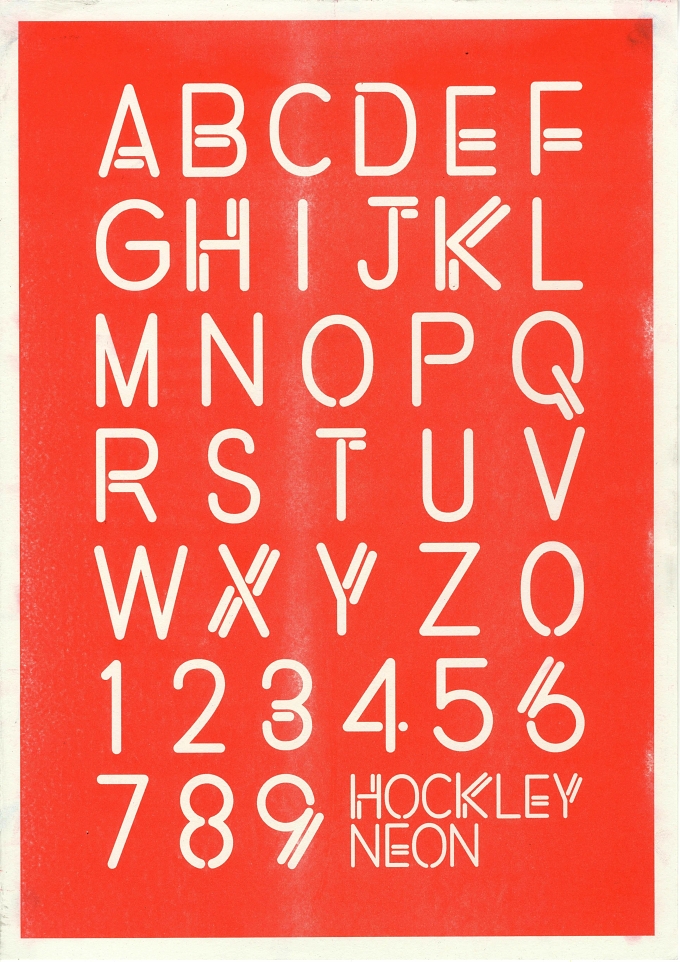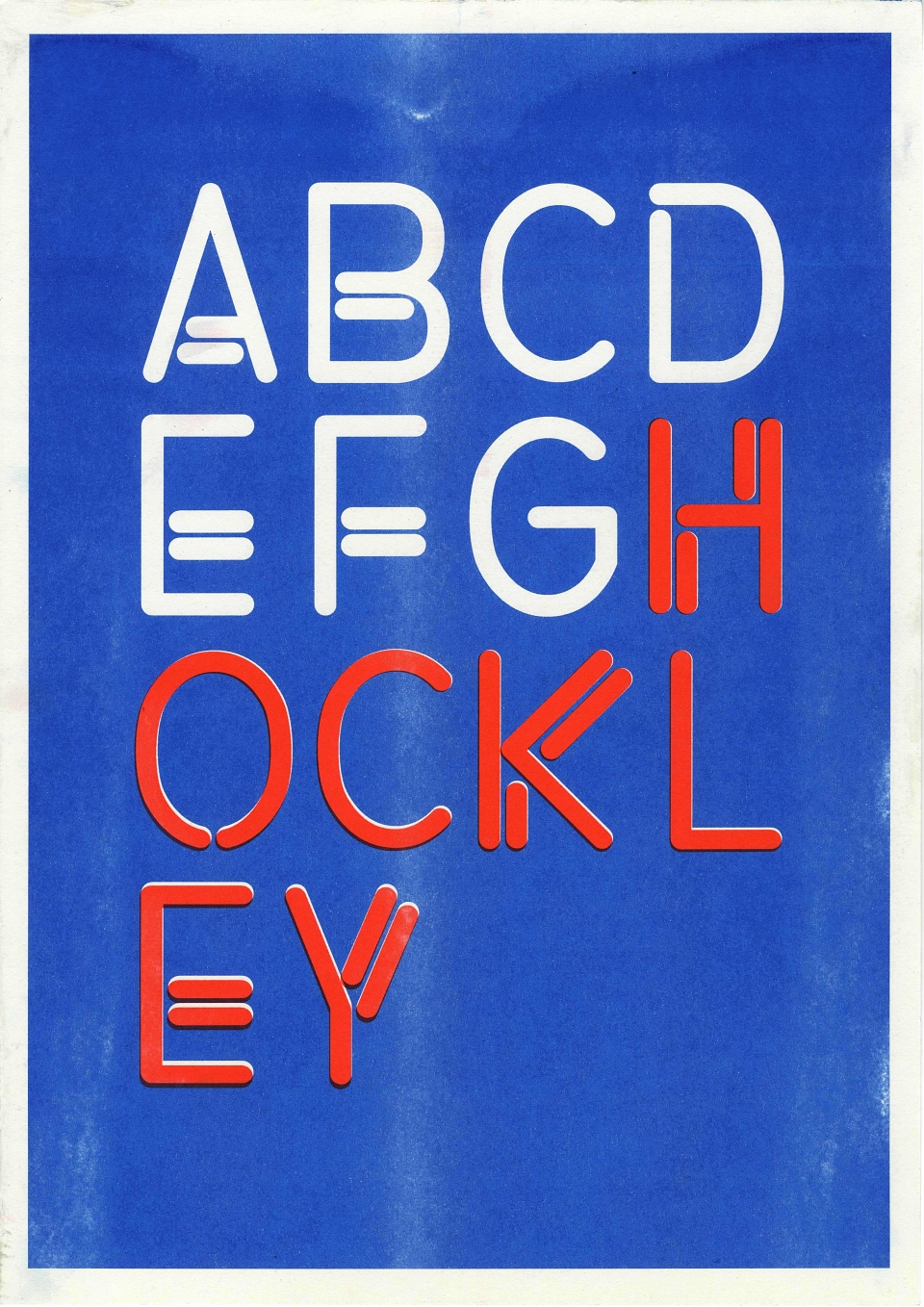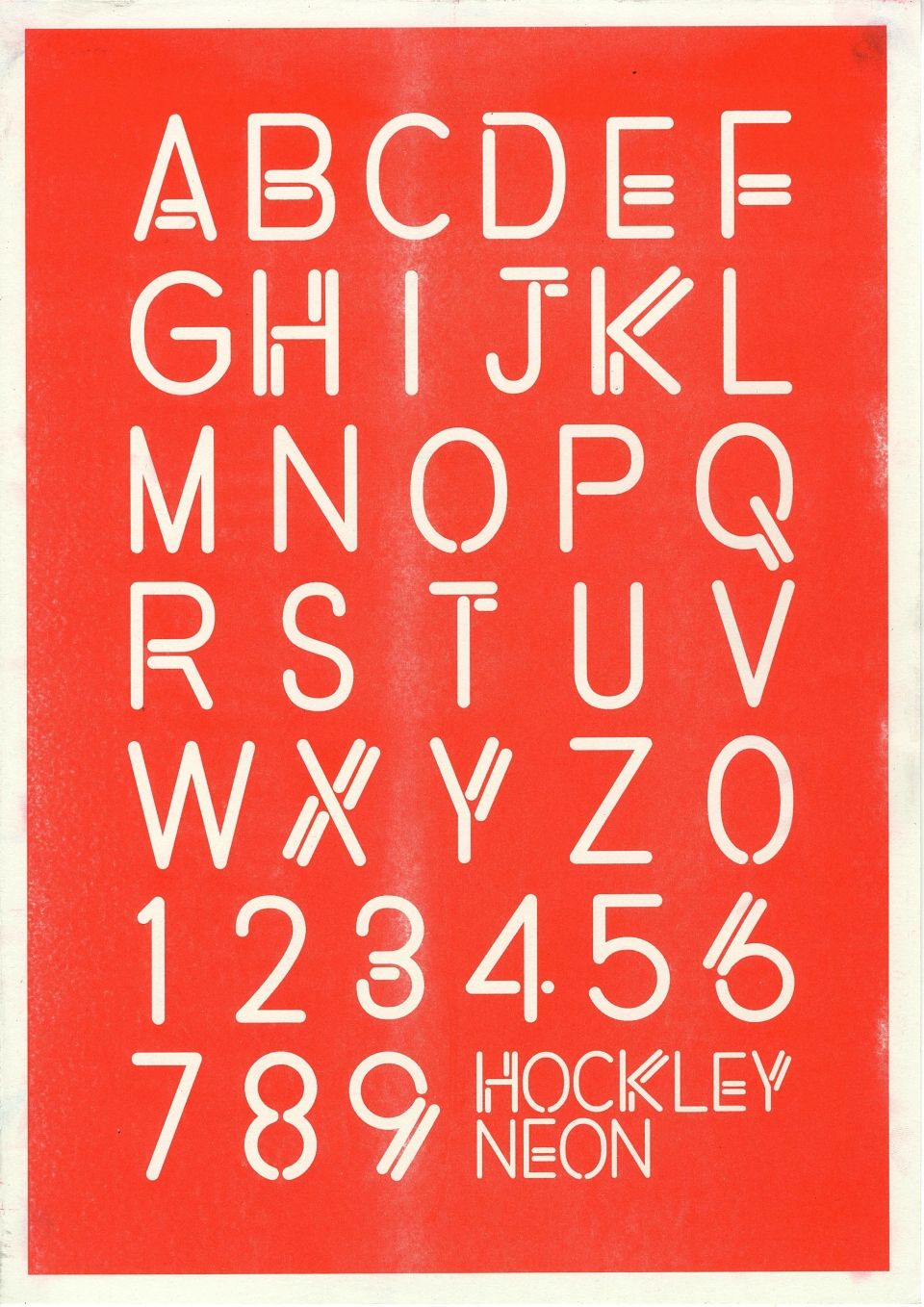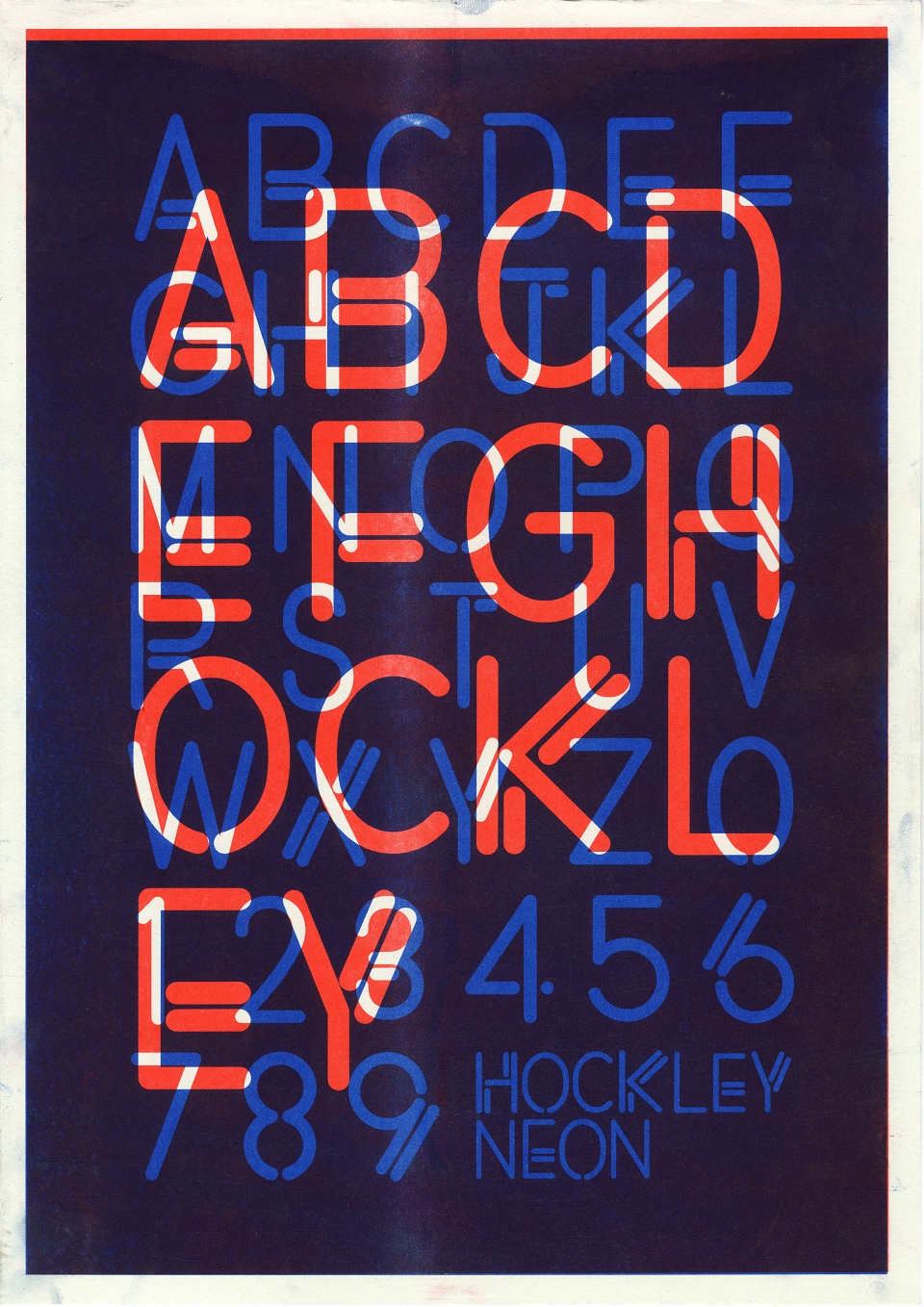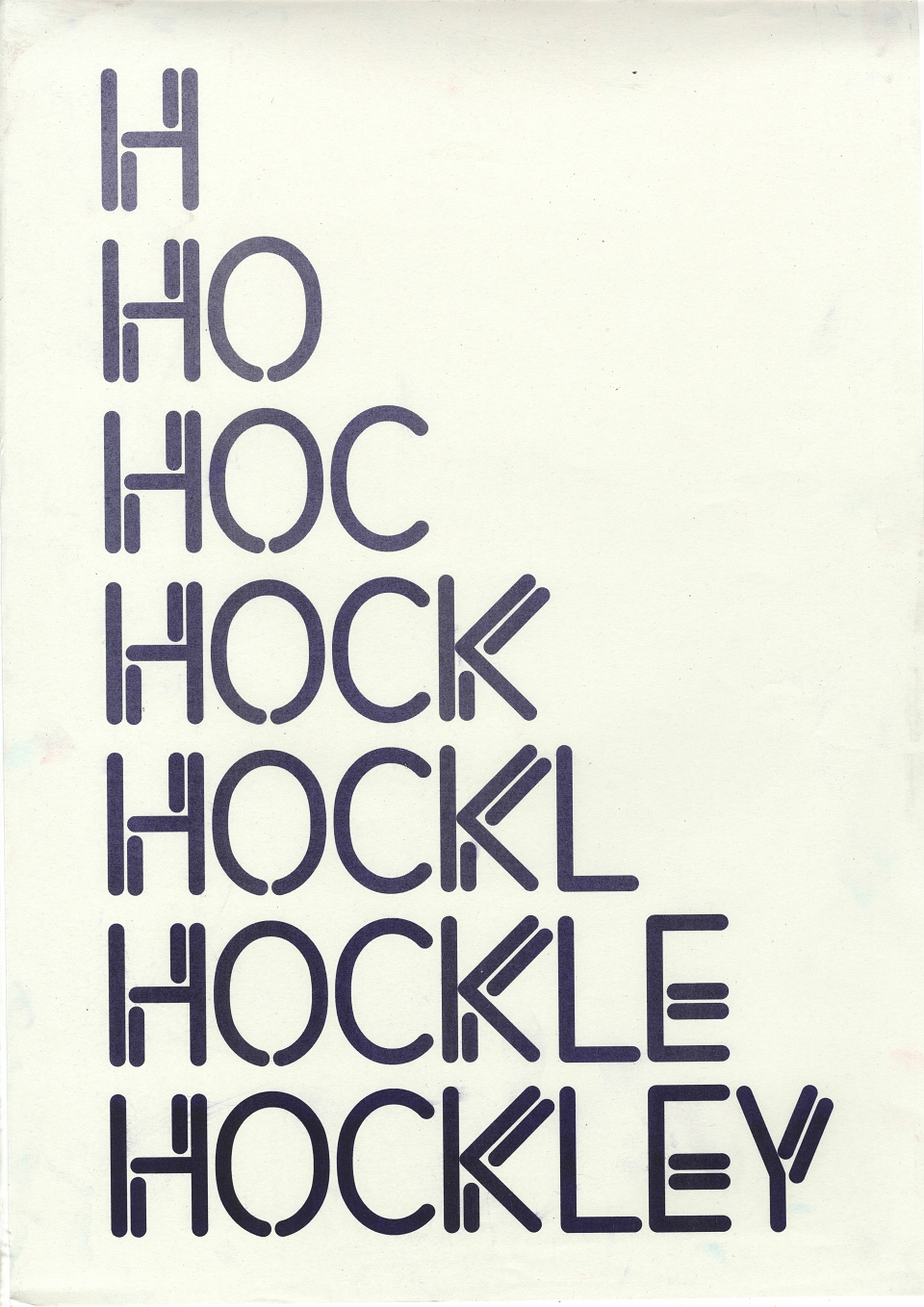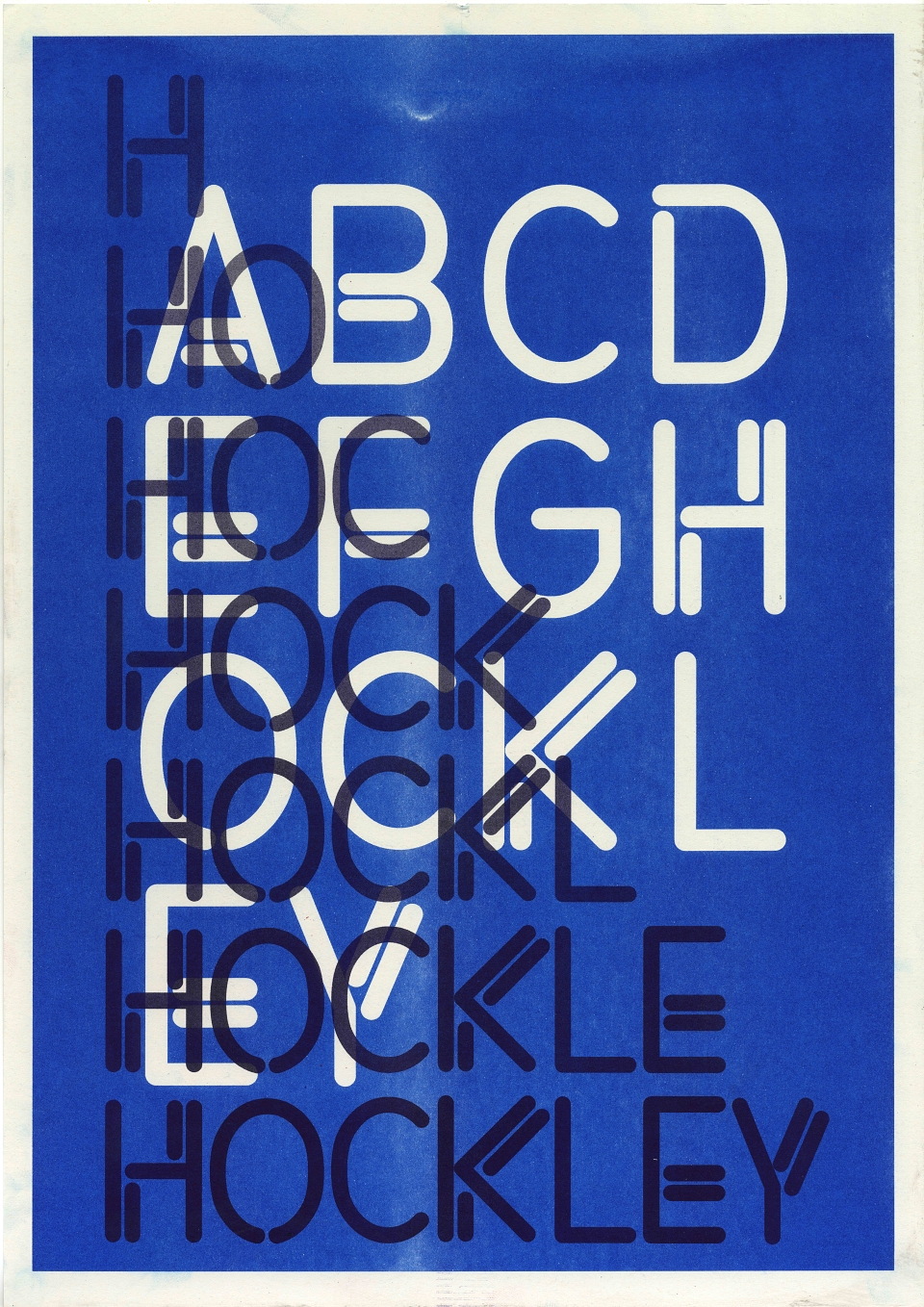
When exploring Hockley I noticed that Hockley unwritten rule is to have a neon sign. Hockley is vibrant during the day but comes alive with various neon lights to invite you in to the various, cocktails bar, restaurants and night life clubs.
I used the formation rules and influence of Neon to inspired a neon typeface that could be used a display typeface for Hockley in promotions.
I used the local Hockley risograph studio to print out a few examples of how the typeface can be used.
Neon Typeface